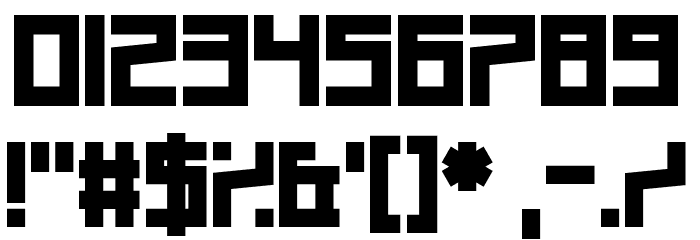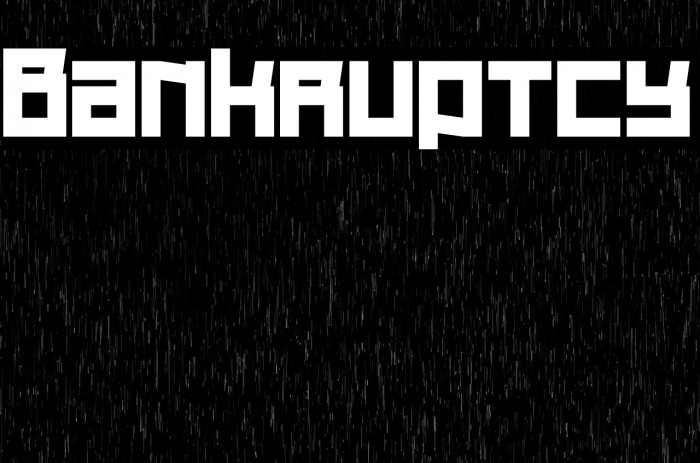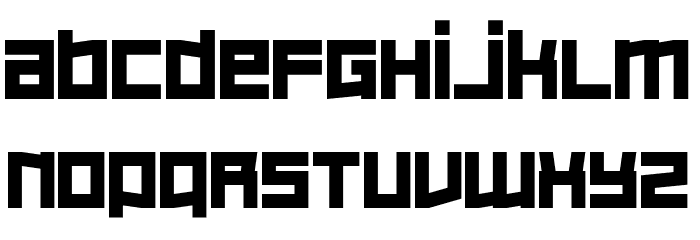
Bankruptcy Font
This font features a bold, geometric design with a strong emphasis on angular shapes and sharp edges. The characters are constructed with a consistent thickness, giving it a uniform and cohesive appearance. The uppercase and lowercase letters maintain a similar style, with the lowercase being slightly more compact. Numbers and special characters follow the same geometric pattern, ensuring a seamless integration across all text elements. The font's blocky and futuristic aesthetic makes it stand out, ideal for projects that require a modern and edgy look.
A bold, geometric font with angular shapes and a futuristic aesthetic.
• Proposed Projects: Ideal for branding, posters, video game graphics, and sci-fi themed projects.
• Category: Decorative/Display
• Overall Style: Modern
• Use Case: Headlines, Logos